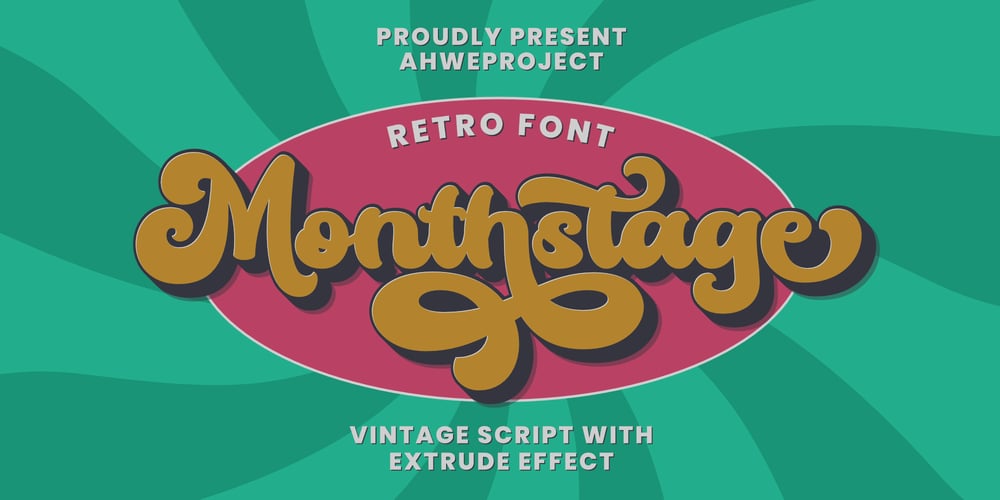
Monthstage Font Family was designed by Dida Ahluddin and published by ahweproject. Monthstage contains 2 styles and family package options. Monthstage is a Vintage retro font inspired by retro typography and lettering in the 70s and 80s combined with a bold typography style.This font is perfect for vintage and retro designs, badges, logos, t-shirts, posters, branding, packaging, signage, book covers, and so much more! This font is PUA encoded, which means you can access all of the glyphs and swashes with ease!